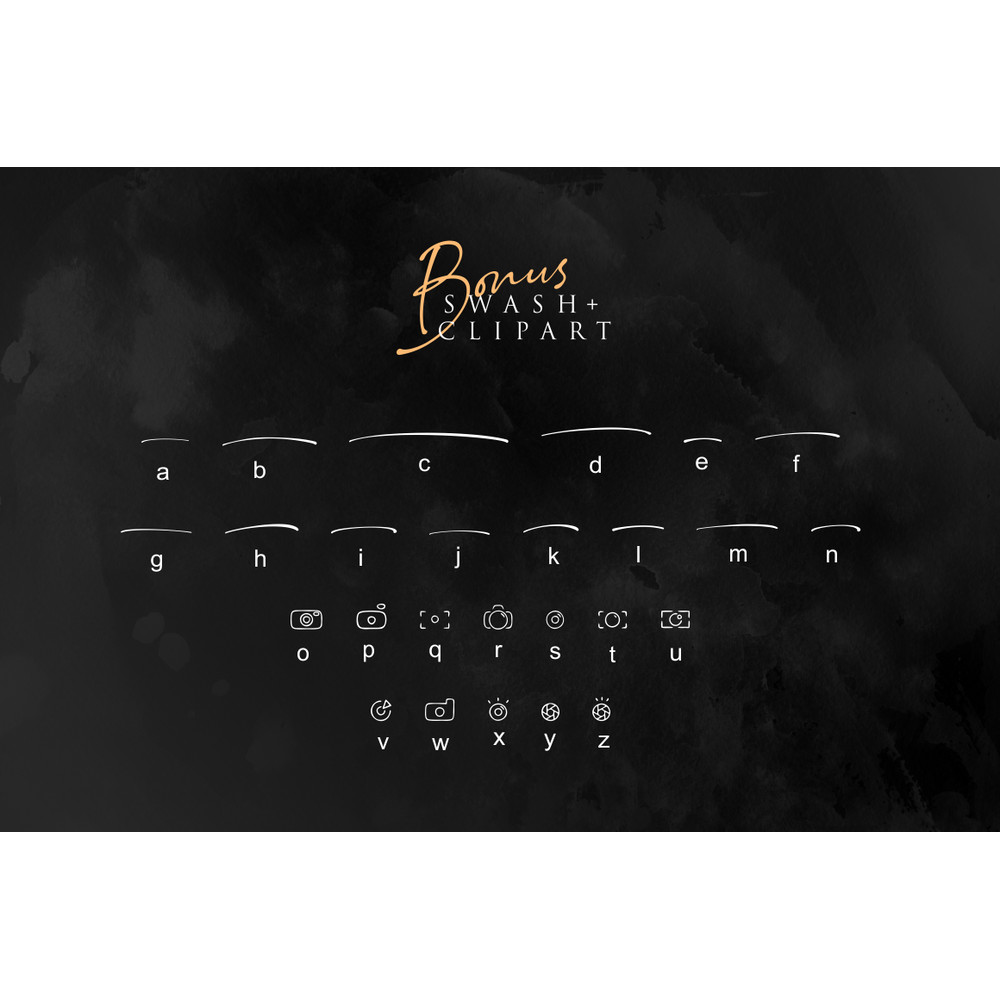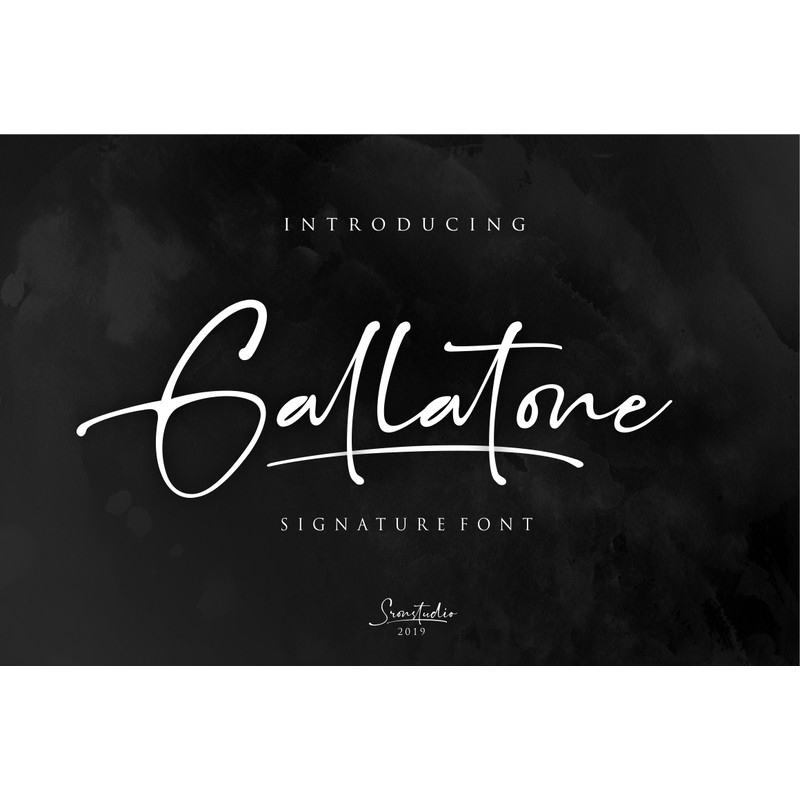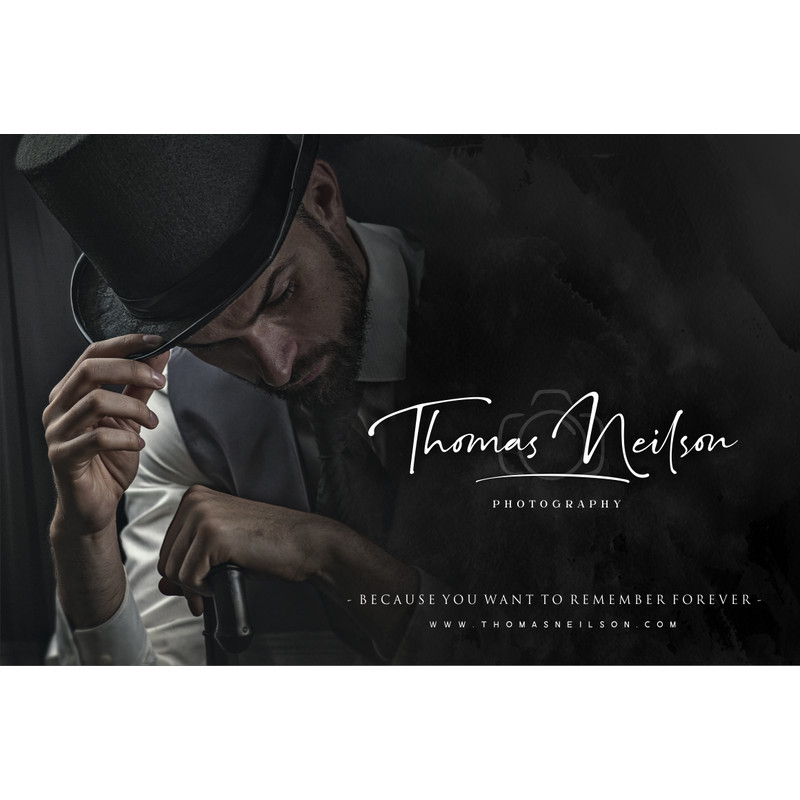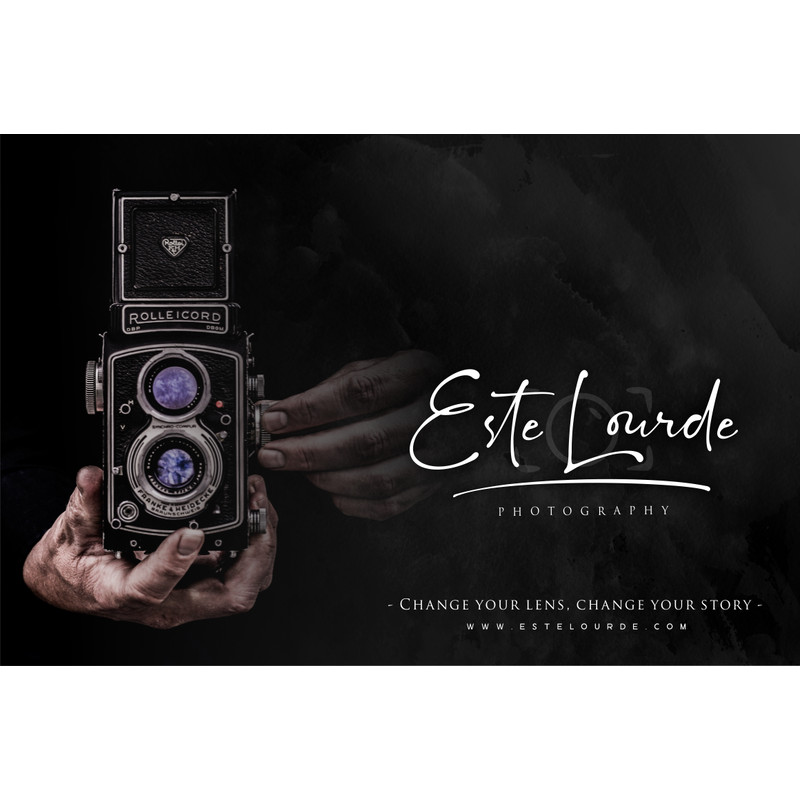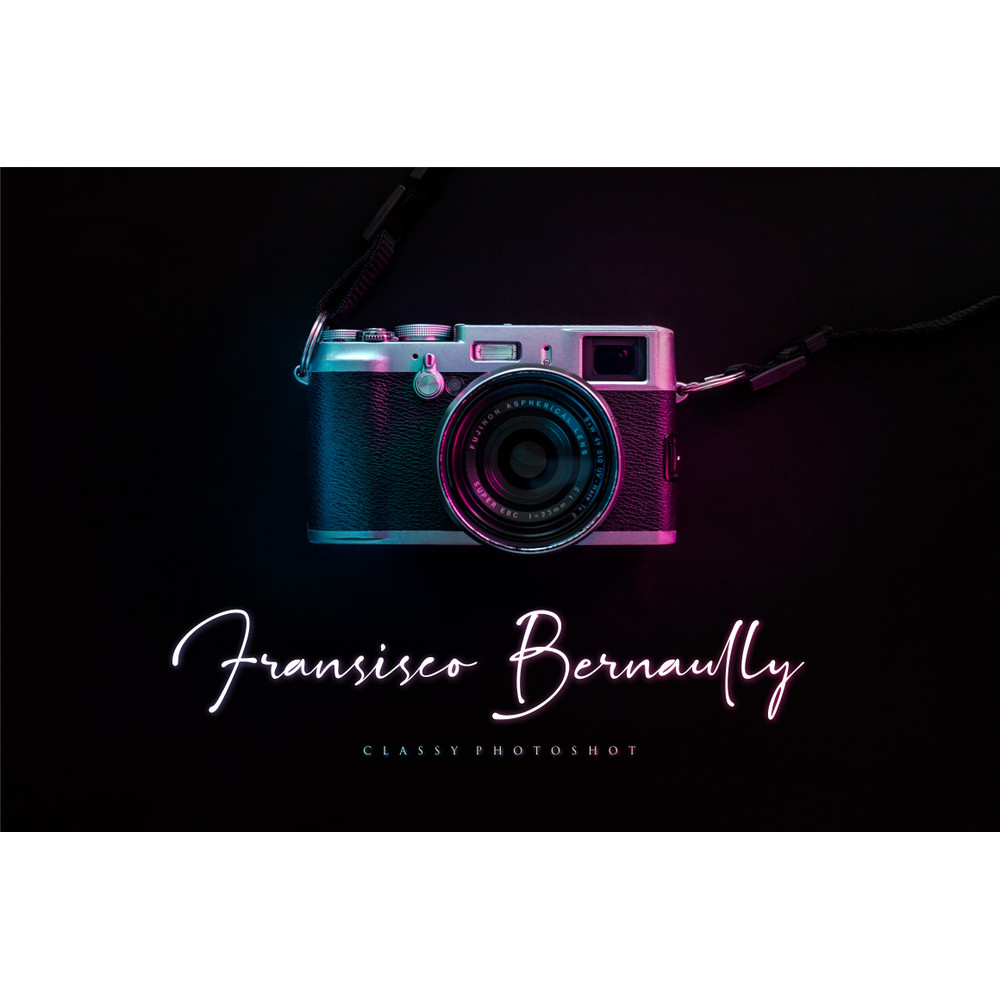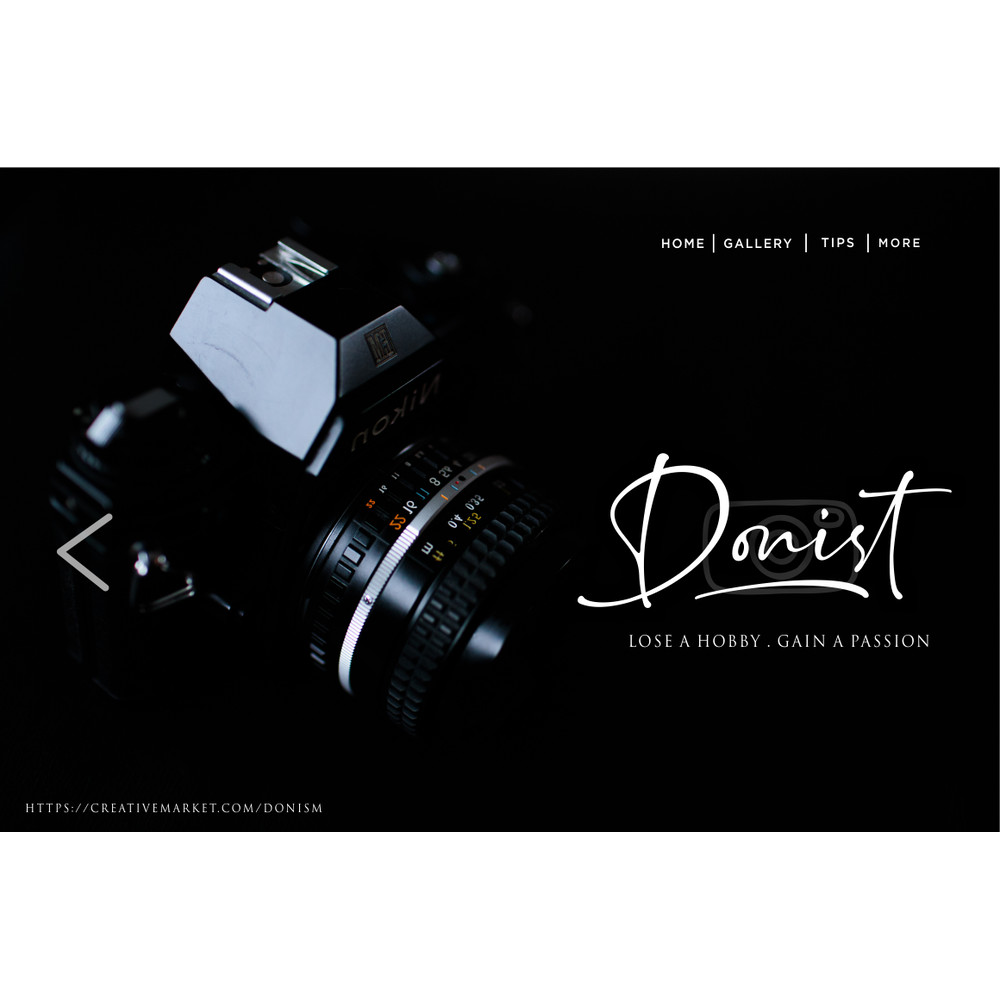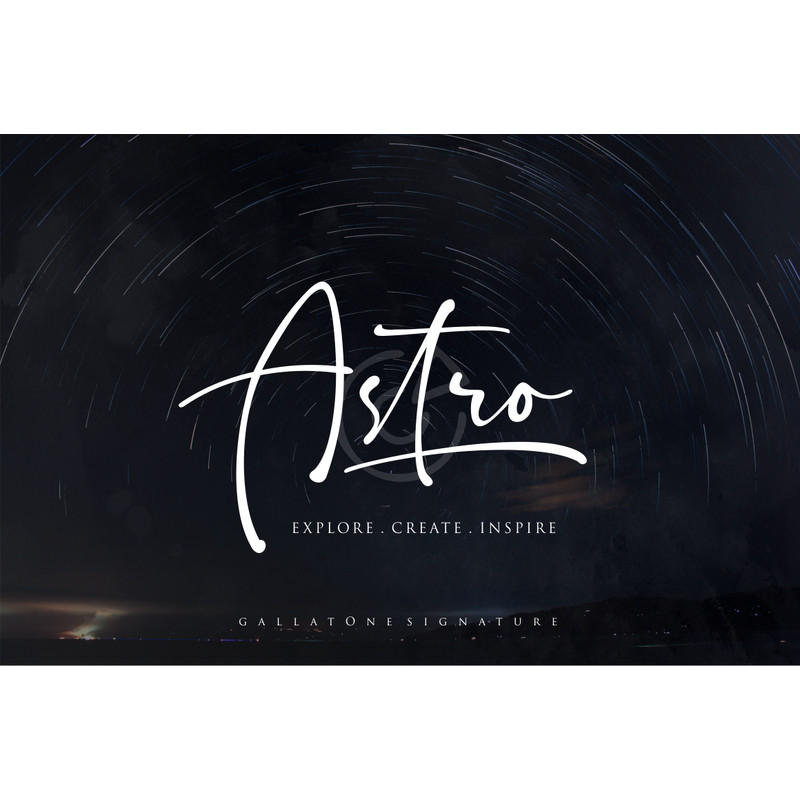
Trending Fonts - Digital FontGallatone // Signature Font & Extra
Introducing Gallatone – a new modern signature with natural lines make this font perfect for your personal branding and any awesome project, such as : logos, invitations, stationery, wedding designs, social media posts, advertisements, product packaging, product designs, labels, photography, watermarks, special events and much more !
Trending Fonts - Digital FontGallatone // Signature Font & Extra
Introducing Gallatone – a new modern signature with natural lines make this font perfect for your personal branding and any awesome project, such as : logos, invitations, stationery, wedding designs, social media posts, advertisements, product packaging, product designs, labels, photography, watermarks, special events and much more !